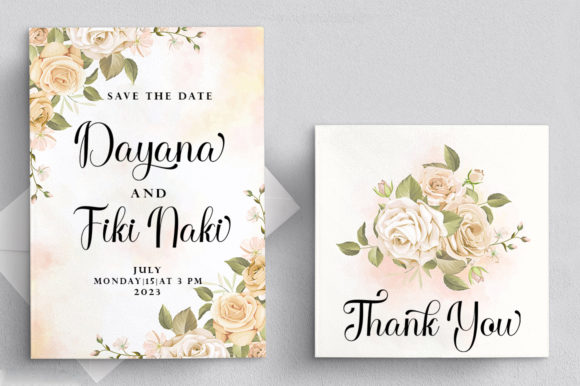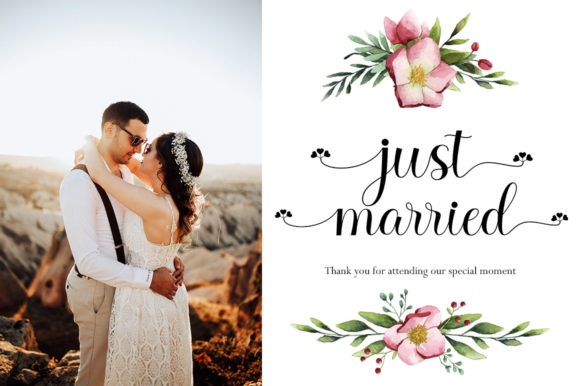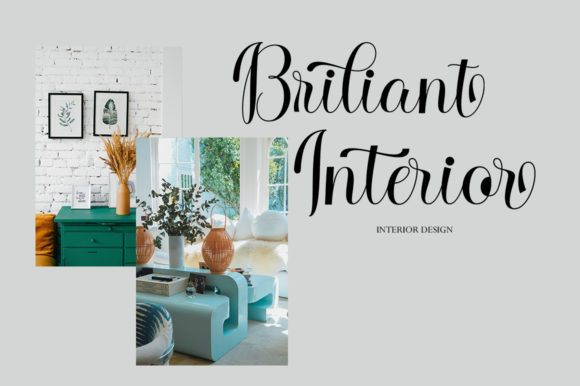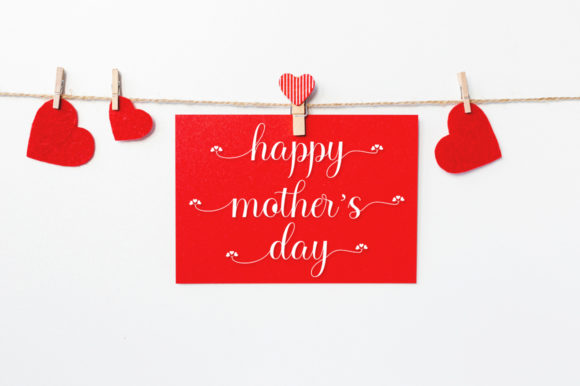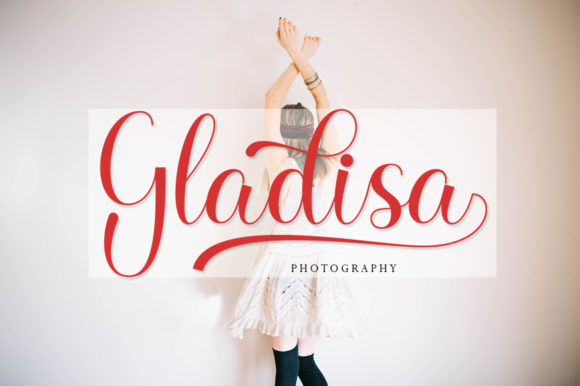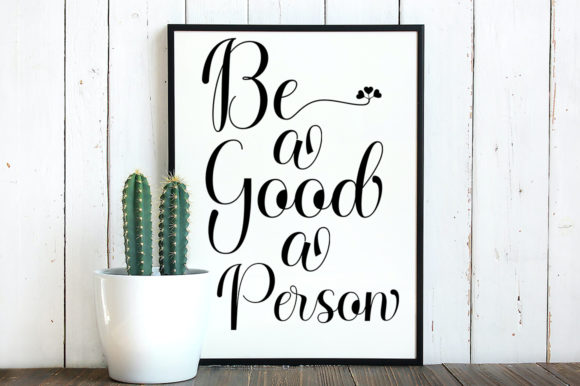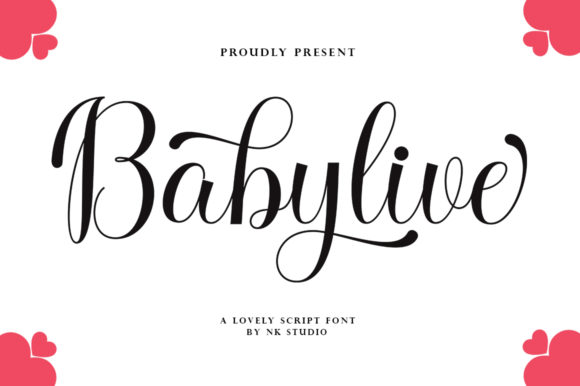
Baby Live Font: Elevate Your Designs with Elegant Script
In the world of typography, a well-crafted font can make all the difference in elevating your design to new heights. For designers and crafters seeking a touch of elegance and sophistication, Baby Live Font is an exceptional choice. This beautiful script font boasts a contemporary atmosphere, impeccable form, and a timeless classic calligraphy feel that is sure to captivate your audience.
Inspiration from Timeless Classic Calligraphy
Baby Live Font draws inspiration from the art of traditional calligraphy, where every line, curve, and flourish is a masterclass in elegance. The font’s creator has skillfully blended classic techniques with modern sensibilities, resulting in a typeface that feels both nostalgic and fresh. Whether you’re working on a branding project, wedding invitation, or social media graphics, Baby Live Font brings a level of refinement that’s hard to match.
One of the standout features of Baby Live Font is its PUA (Private Use Area) encoding. This means that the font includes a wide range of glyphs and swashes, easily accessible through your design software. With PUA encoding, you can effortlessly add flourishes, ligatures, and other decorative elements to your text, giving your designs a unique and personalized touch. No more tedious searching for the perfect character or manually adjusting letterforms – Baby Live Font makes it easy to create stunning text arrangements.
Contemporary Atmosphere and Impeccable Form
Baby Live Font’s design strikes a perfect balance between modernity and classic sophistication. The font’s clean lines, flowing curves, and carefully crafted letterforms create a sense of fluidity and movement. This makes it ideal for designs where you want to convey a sense of luxury, elegance, or whimsy. From fashion branding to stationery, Baby Live Font adapts seamlessly to various design contexts, always looking polished and refined.
Versatility for Designers and Crafters
Whether you’re a professional designer or a crafter looking to add a personal touch to your projects, Baby Live Font offers incredible versatility. Use it for:
- Branding and logos: Create a lasting impression with a custom logo that exudes sophistication.
- Wedding and event invitations: Add a touch of romance and elegance to your stationery.
- Social media graphics: Elevate your online presence with stylish, eye-catching text.
- Packaging and product design: Stand out on store shelves with beautifully crafted labels and packaging.
Why Choose Baby Live Font?
With so many fonts available, why choose Baby Live Font? Here are just a few reasons:
- Unique and distinctive: Baby Live Font offers a fresh take on traditional script typography.
- Ease of use: PUA encoding makes it simple to access and use the font’s extensive character set.
- High-quality design: Impeccable form and attention to detail ensure a professional finish.
Baby Live Font is a stunning script font that brings a touch of elegance and sophistication to any design project. With its PUA encoding, contemporary atmosphere, and impeccable form, it’s an excellent choice for designers and crafters seeking to elevate their work. Whether you’re creating branding materials, wedding invitations, or social media graphics, Baby Live Font is sure to make a lasting impression. Discover the beauty of Baby Live Font and take your designs to new heights.